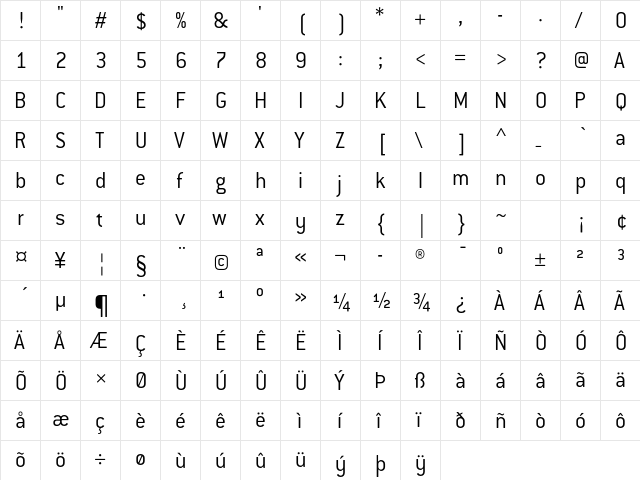
ConduitITCStd Light
| Foundry | International Typeface Corporation |
| Designer | Mark van Bronkhorst, MvB Design |
Design Context for ConduitITCStd Typeface
ConduitITCStd is a composed and adaptable typeface that performs quietly and consistently across a wide range of design contexts. The delicate stroke weight brings airiness and refinement to layouts. The condensed width makes it efficient for tight spaces without sacrificing legibility.